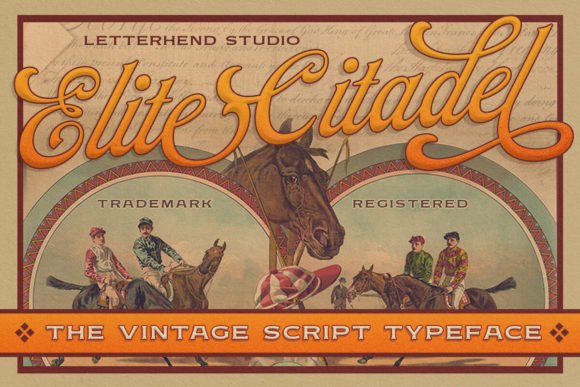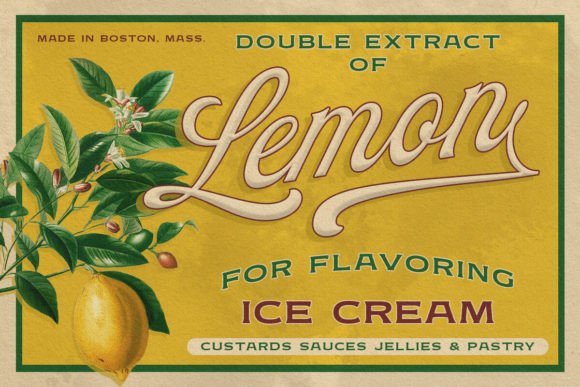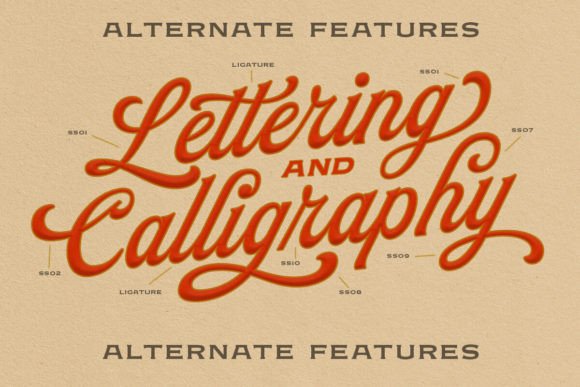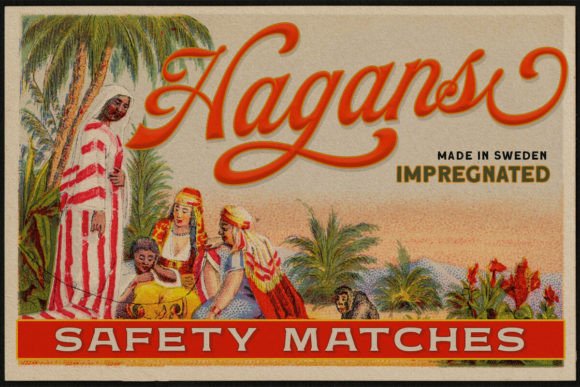
Elite Citadel Font: Retro Script Typography for Vintage Branding
About the Elite Citadel Font
Step up your design game with Elite Citadel Font, a font that exudes confidence and style. Capture the elegance of the past with Elite Citadel, a vintage script font that excels in logos, headlines, and signage. This versatile typeface is perfect for formal uses like invitations, labels, magazines, books, greeting and wedding cards, packaging, fashion, makeup, stationery, novels, and various advertising needs.
Elite Citadel’s elegant vintage style is best suited for headlines, logos, and short text blocks in branding materials, packaging, and high-end invitations. Its decorative nature makes it less suitable for body copy or UI elements where readability is paramount. Avoid using it for lengthy paragraphs or small sizes.
The font projects a sophisticated and slightly formal personality. It works well for brands aiming for a classic, luxurious feel, such as jewelry, fashion, or high-end cosmetics. Pairing it with a clean sans-serif like Montserrat or a geometric sans-serif like Futura provides a modern contrast, balancing its ornate details. For a warmer feel, consider pairing it with a serif like Garamond or a slightly playful script font with less flourish for a cohesive yet varied look.
For a more contemporary feel, a clean geometric sans-serif is a good option. In this way, the elegance of the script is highlighted.
Elite Citadel Font Usage Examples
Elite Citadel Font Example